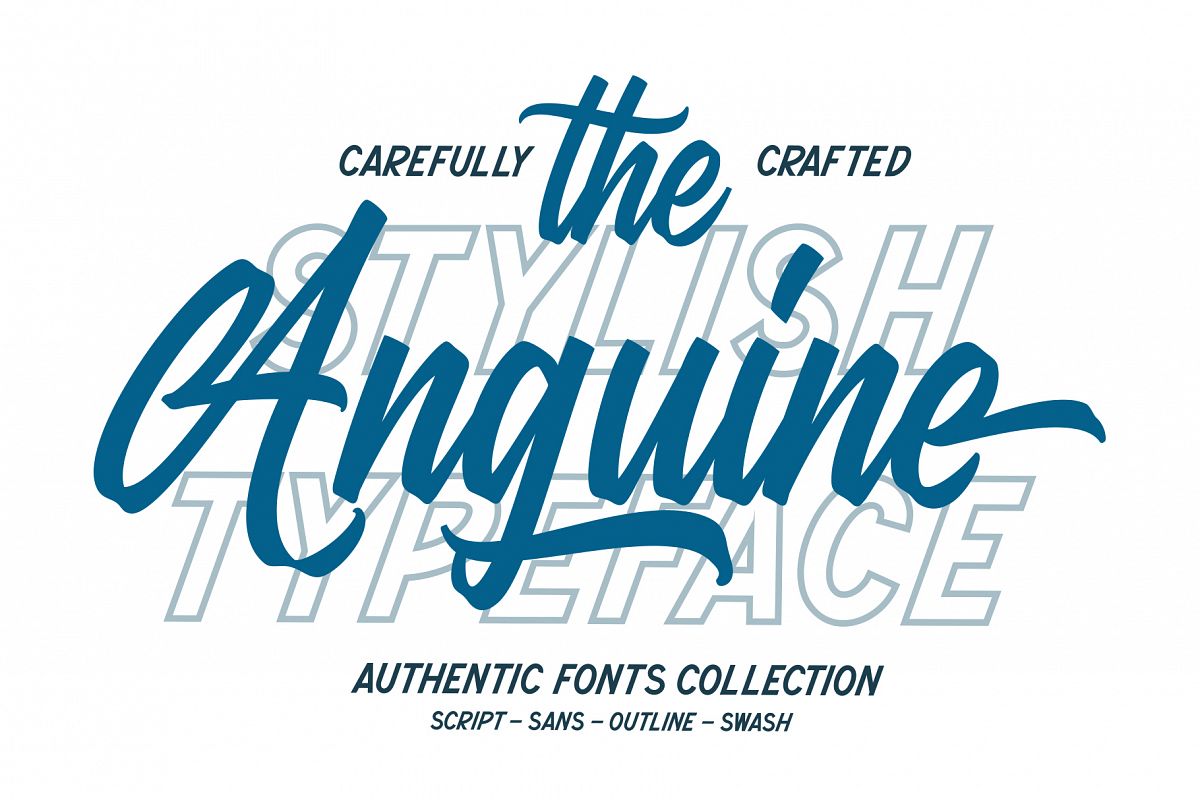
Anguine - Stylish Typeface
Anguine Sans
Anguine Outline
Anguine Script
Introducing Anguine - Stylish Typeface which has a modern hand lettering style. So it looks natural like a handmade. This font is best used for your design project that has the concept of fun, girly, romantic and elegant. Can also be applied to the design of a logotype, header website, wedding logo, romantic design, makes some lettering a quote, T-shirt design etc.Also supported PUA encoded. Simply copy and paste the alternate characters using the Character Map (Windows), Font Book (Mac) or a software program such as PopChar (for Windows and Mac).This font works best with open-type friendly applications,How to get access alternate glyphs from open type fonts : http://adobe.ly/1m1fn4YFeatures :